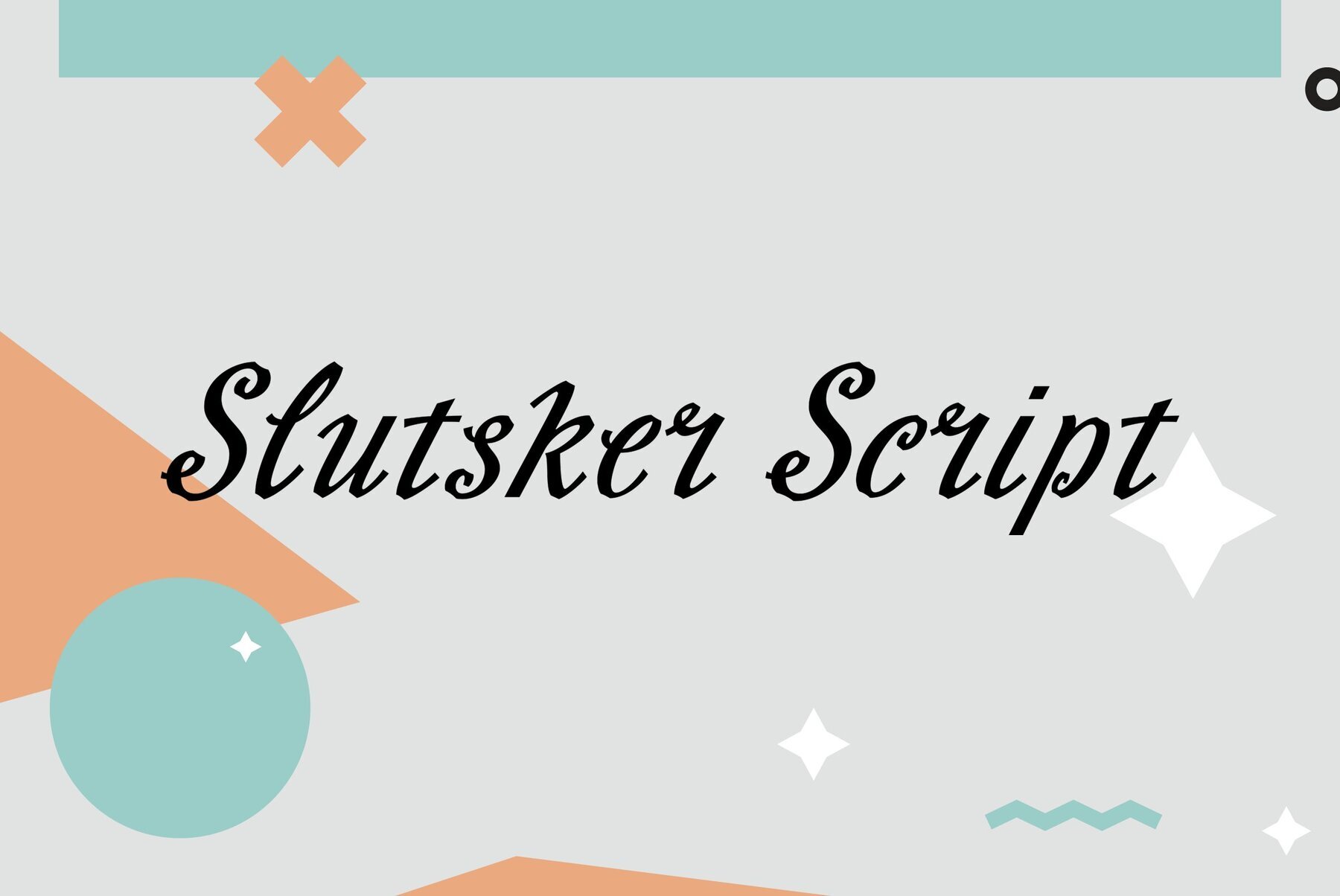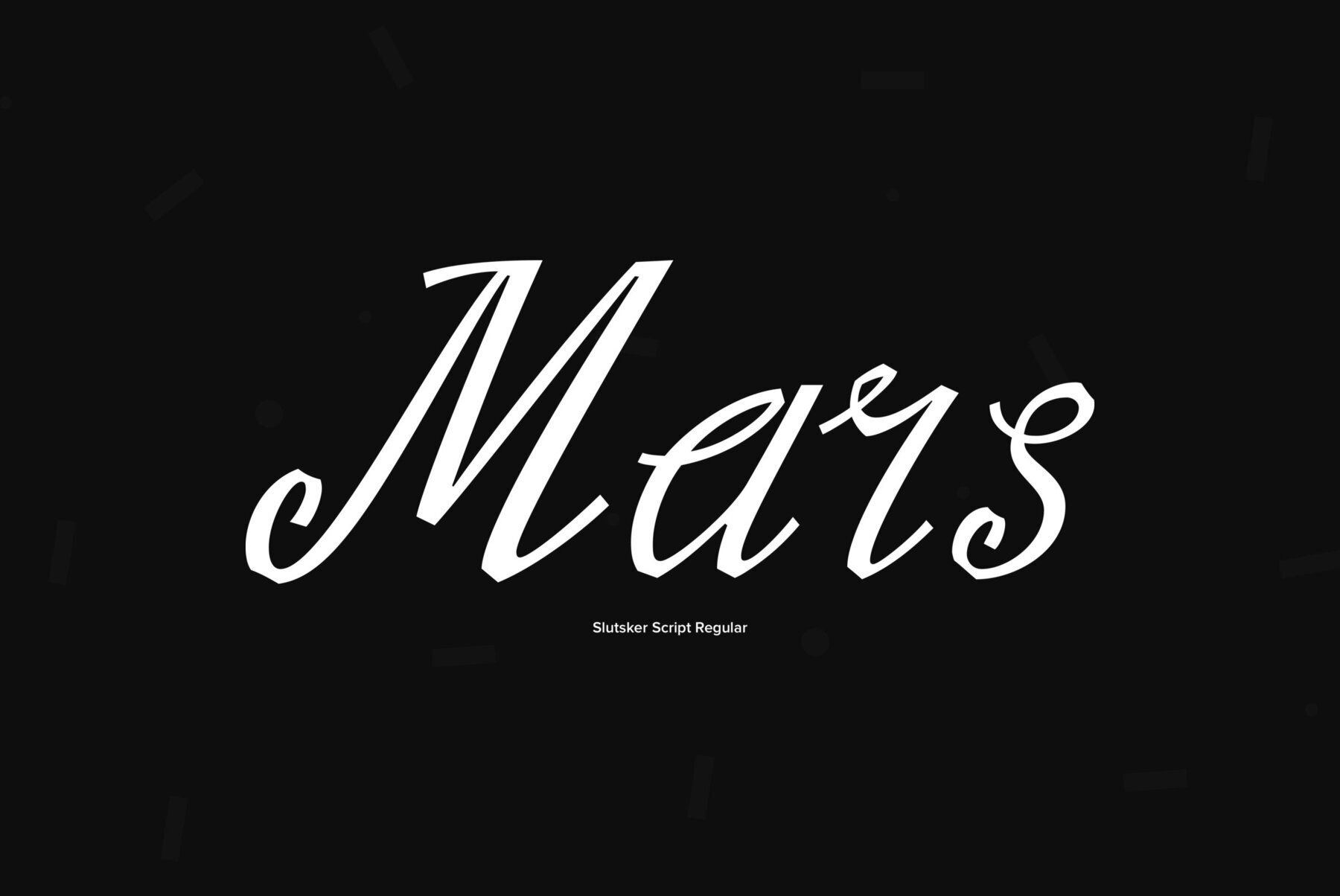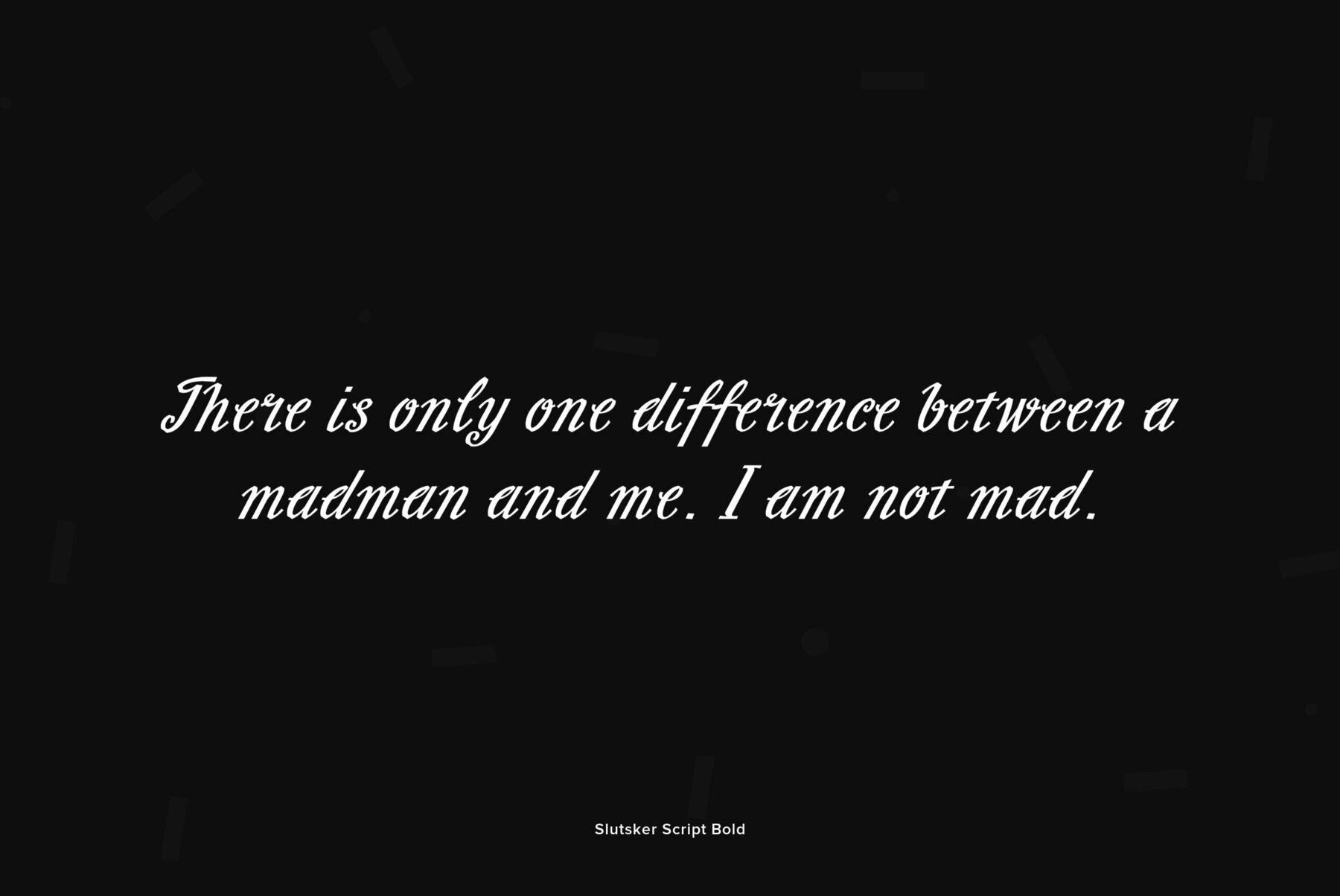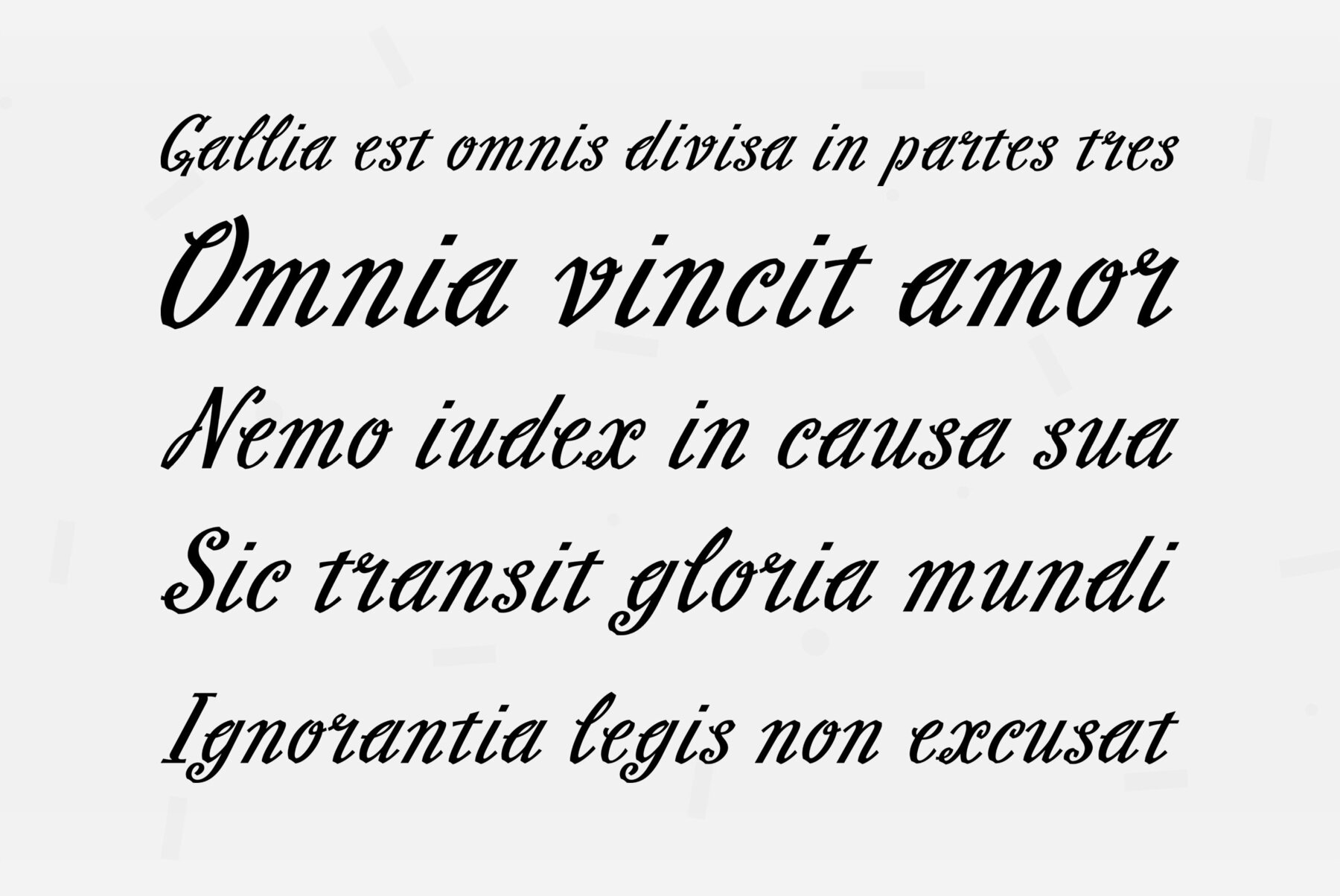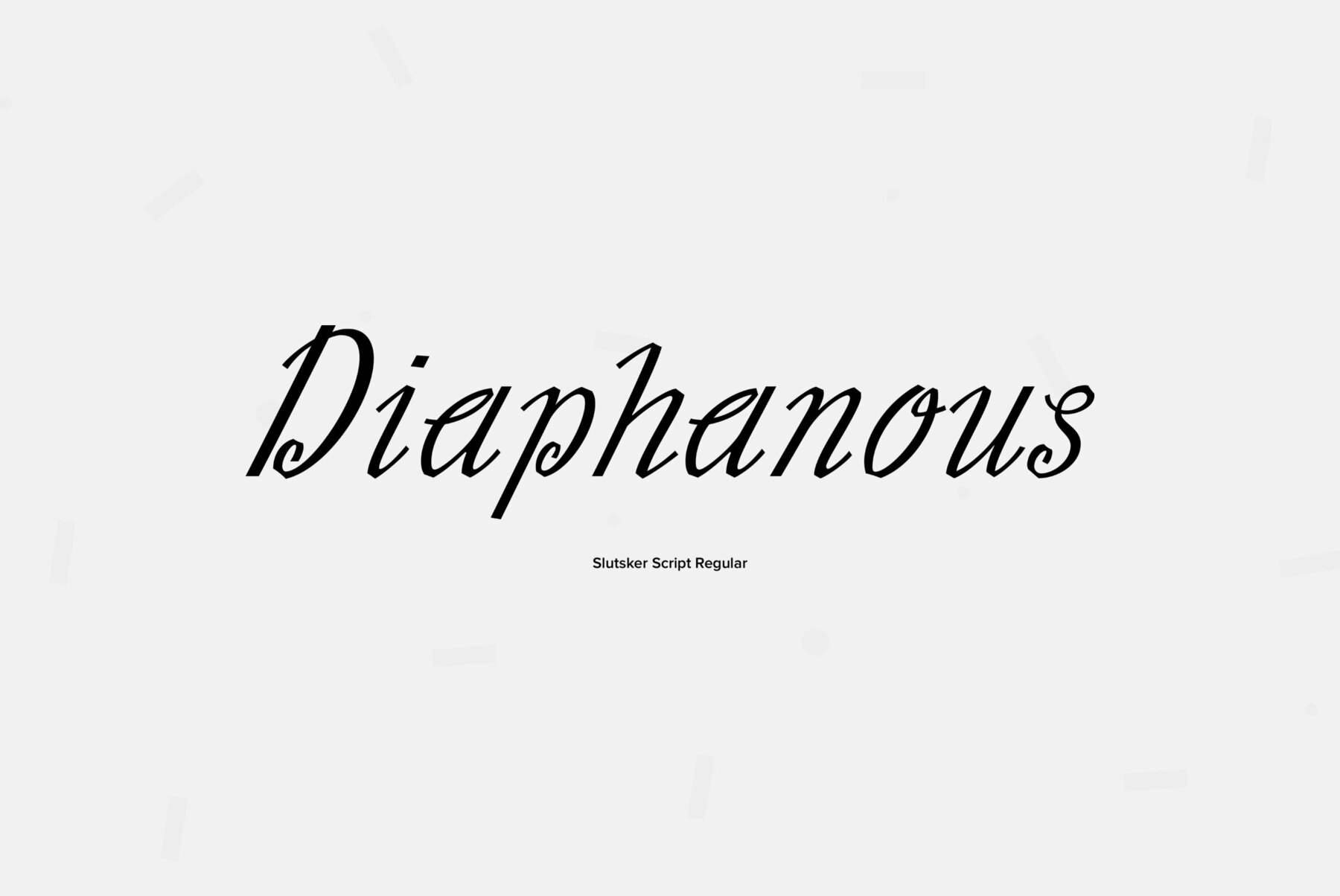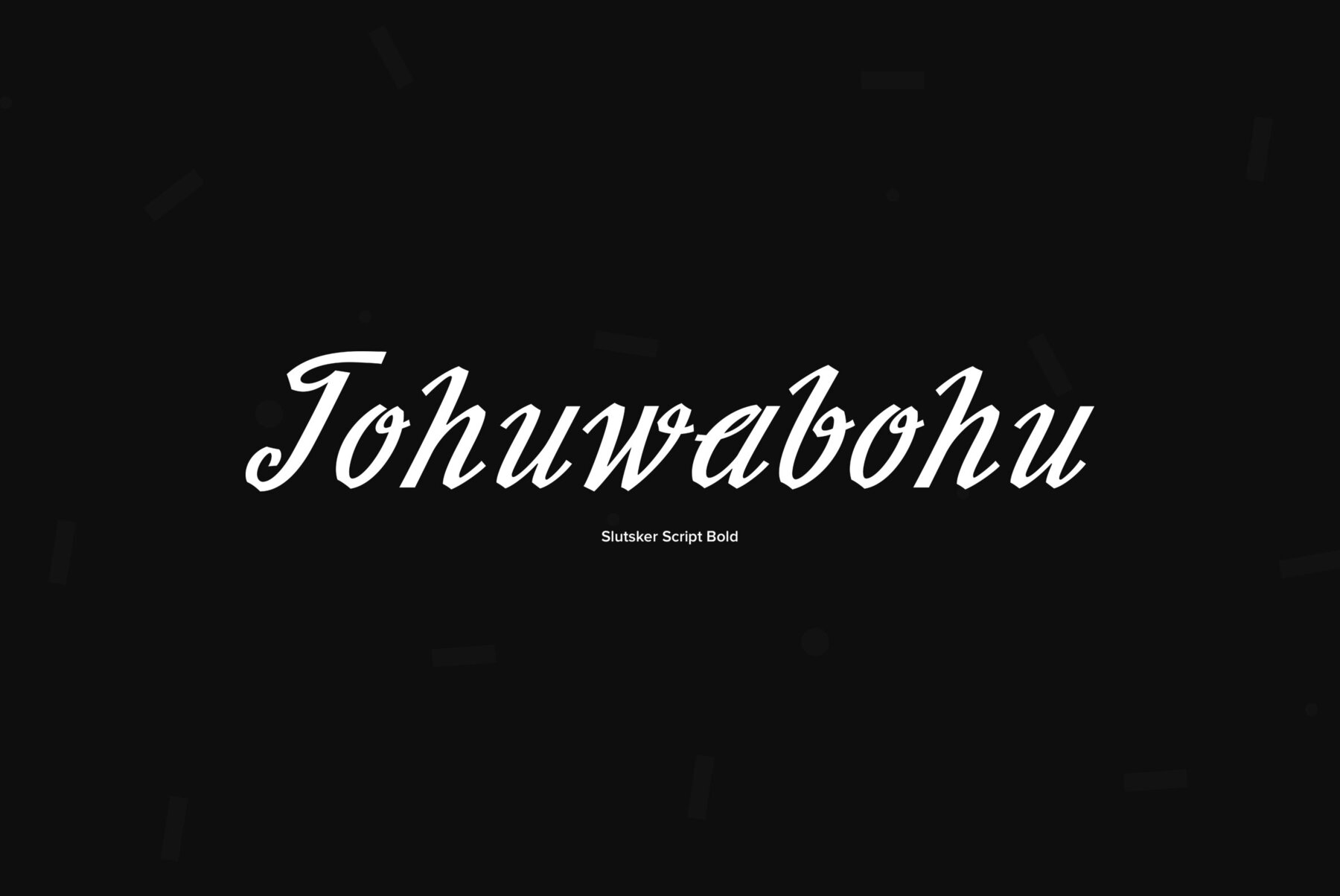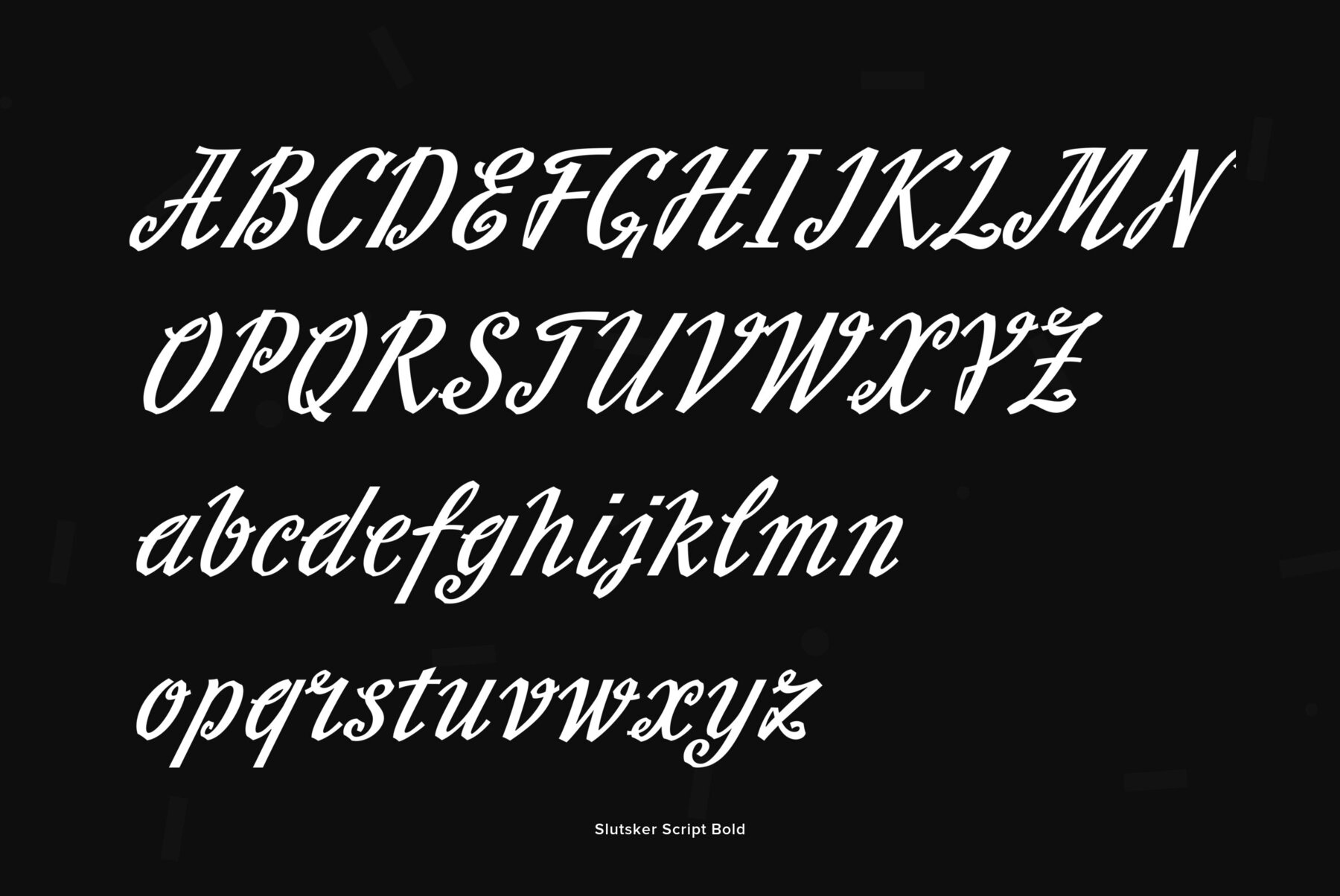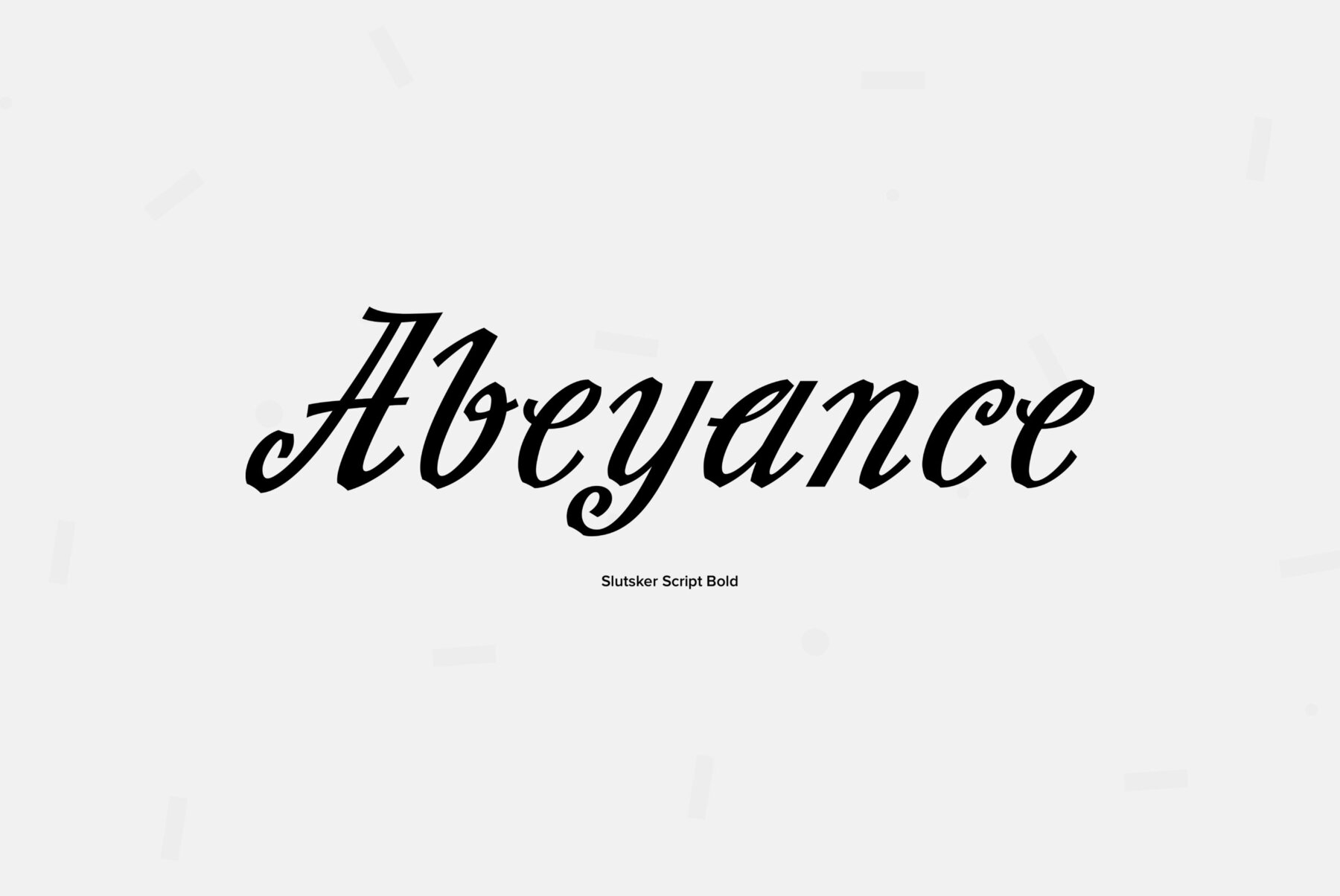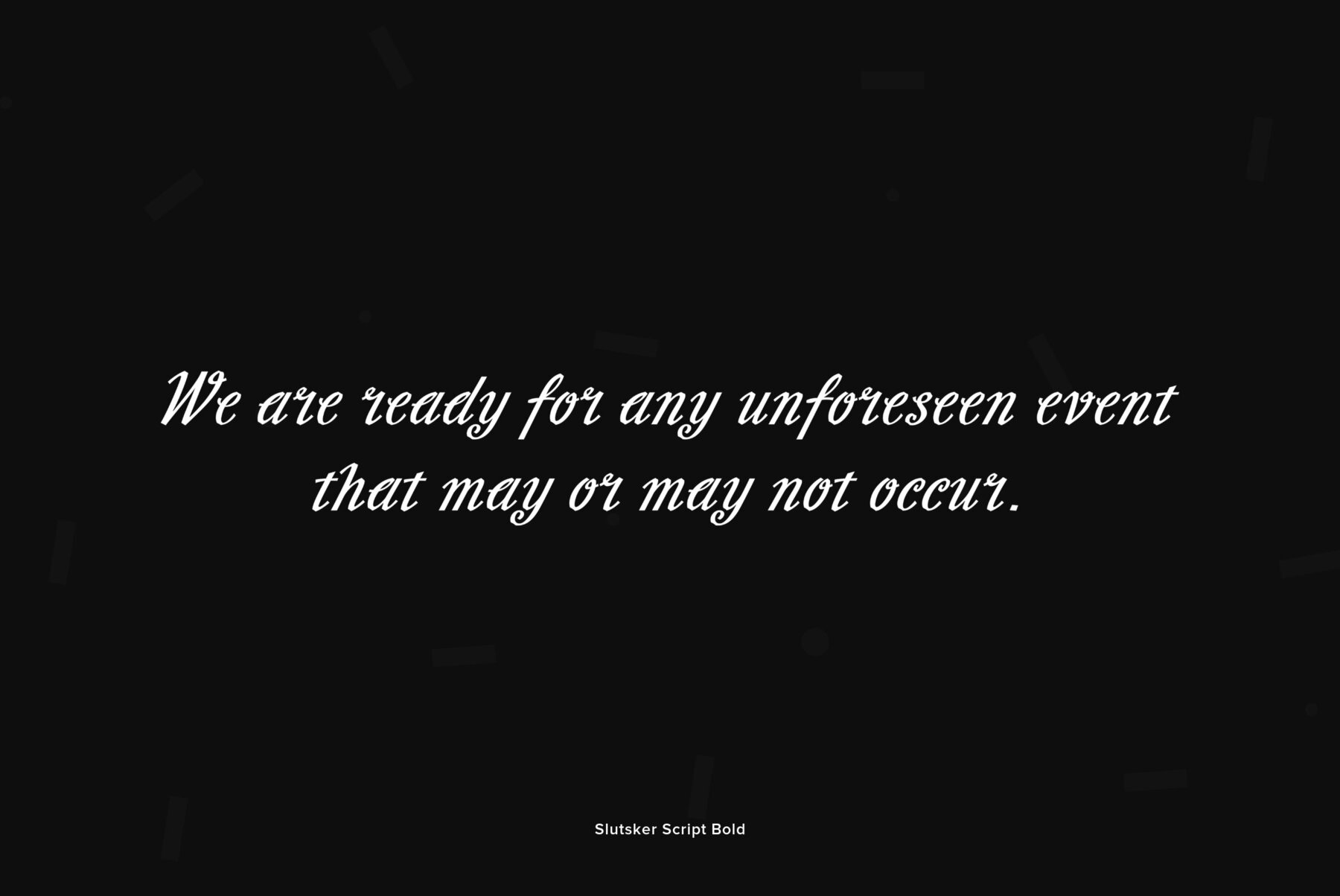
Slutsker Script
Designed in 2003 by Isay Slutsker and Irina Smirnova. Based on the calligraphic typeface of mid-1980 by Moscow type designer Isay Slutsker (1924-2002). There is a free variation of flat nib pen calligraphy. For use in advertising and display typography.